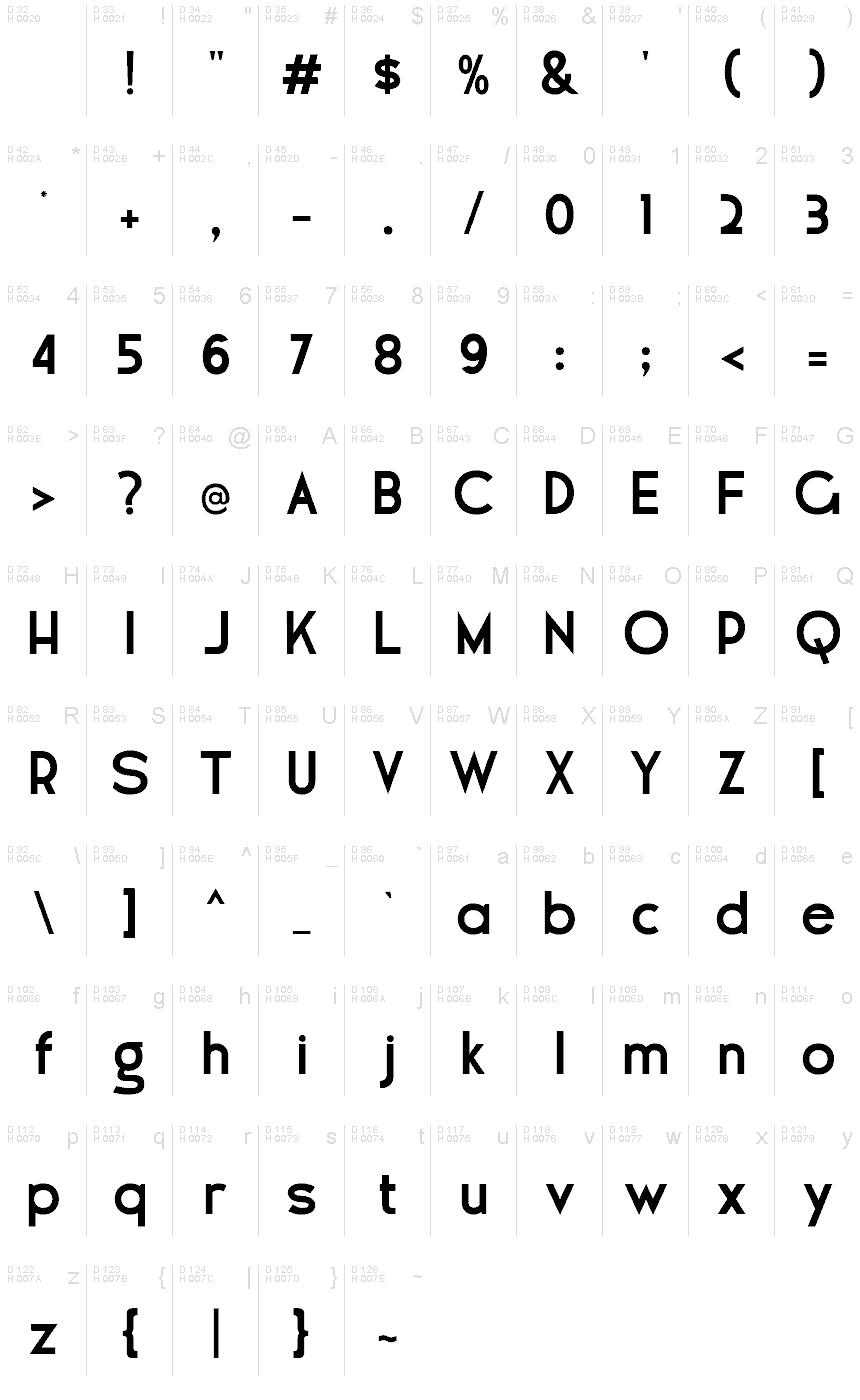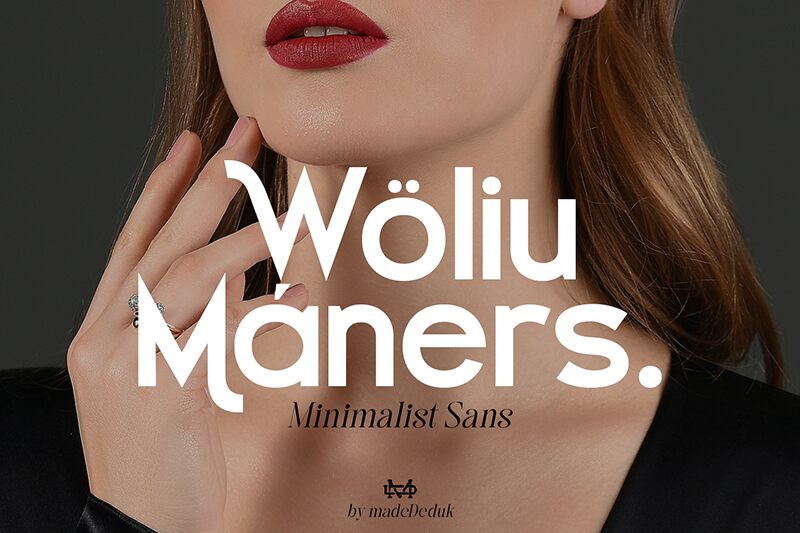
Woliu Maners Demo
Woliu Maners font by madeDeduk is a clean, modern sans serif font with a minimalist design. It beautifully combines geometric forms and contemporary style to present a unique look that is suitable for many uses. Each character features uniform line strokes, curved angles, dynamic curvature, and pointy edges. The typeface showcases precision in every visual element included.